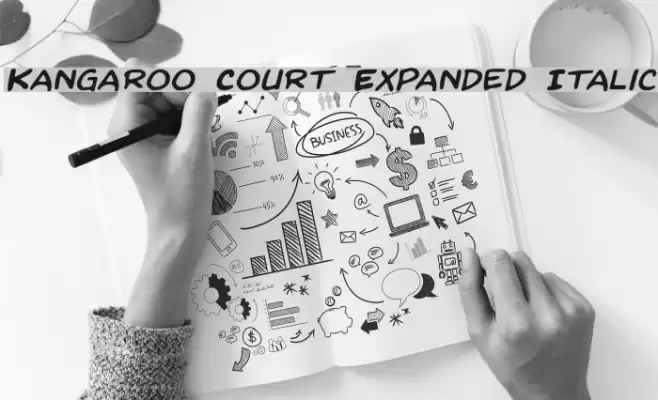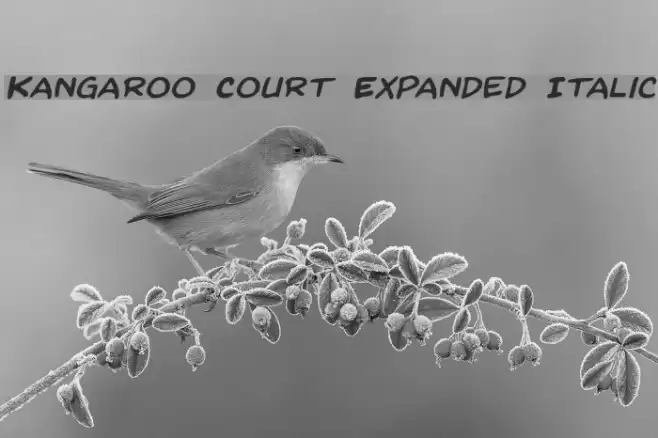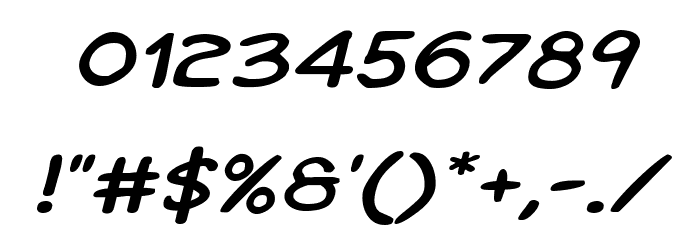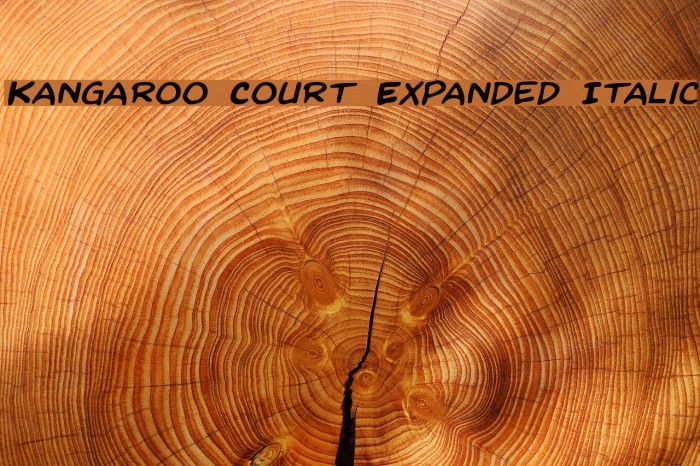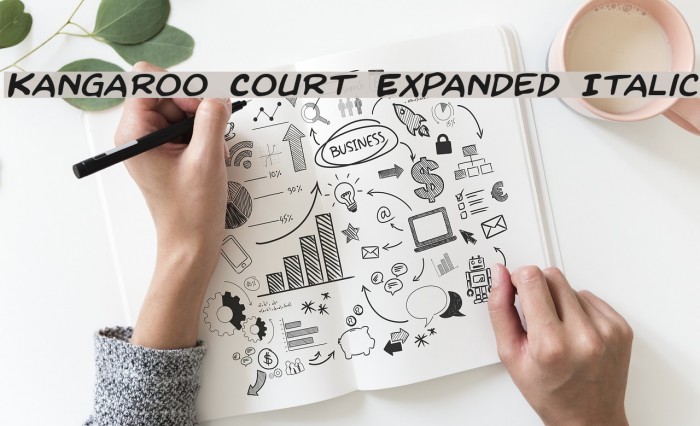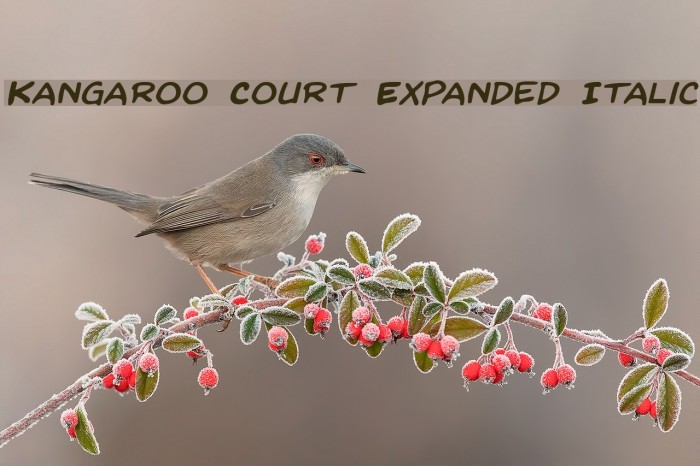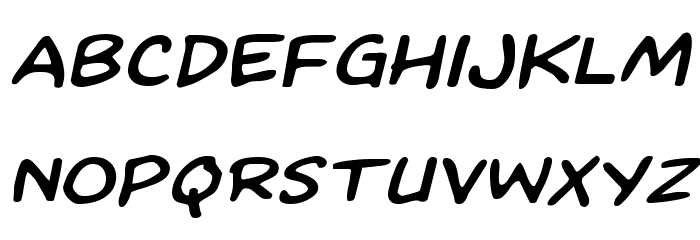
Kangaroo Court Expanded Italic Font
Kangaroo Court Expanded Italic Description
This font features a playful and dynamic style with a handwritten appearance. The characters are slightly slanted, giving it an italicized look, and the strokes are bold and rounded, adding a sense of friendliness and approachability. The expanded width of the letters provides a spacious feel, making it suitable for eye-catching designs. The font maintains a consistent stroke thickness, offering medium contrast that enhances readability while retaining its casual charm. Its unique style makes it ideal for projects that require a personal touch or a fun, informal vibe.
A playful, handwritten-style font with bold, rounded strokes and an italicized, expanded appearance from Uncategorized fonts.
- Proposed Projects: Ideal for greeting cards, children's books, playful branding, and casual invitations.
- Width: Expanded
- Overall Style: Casual
- Use Case: Headlines, Logos, Invitations